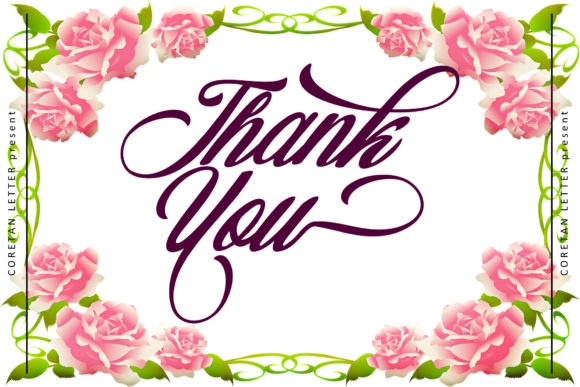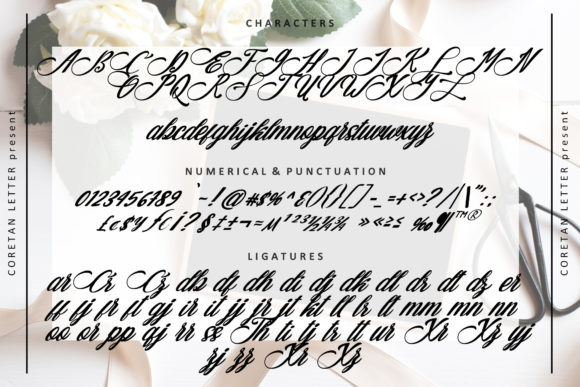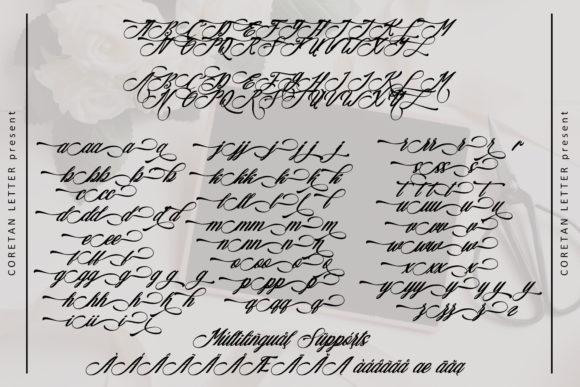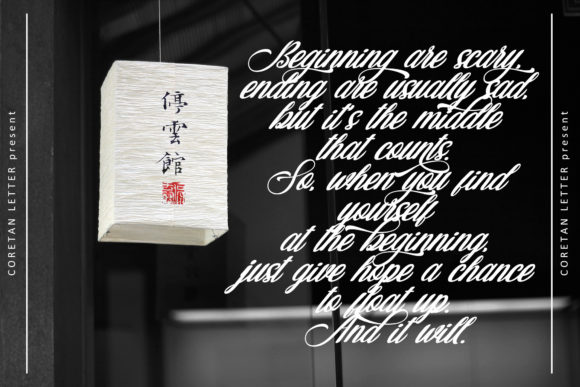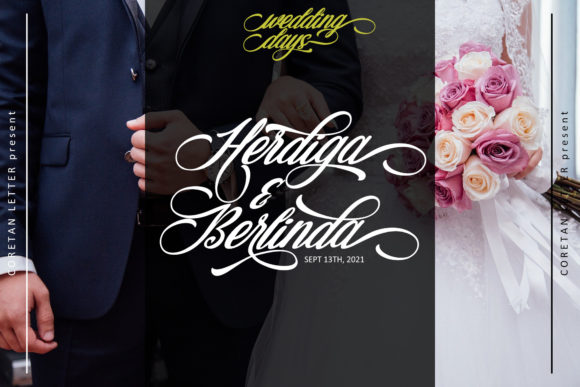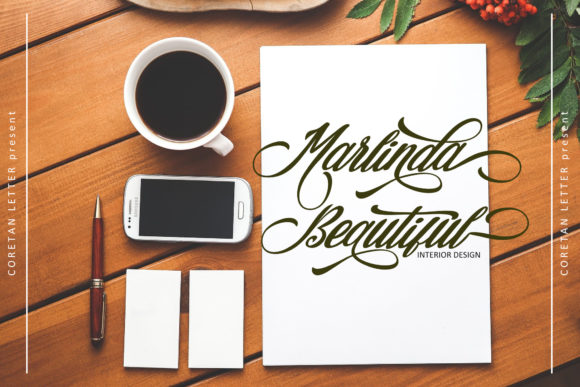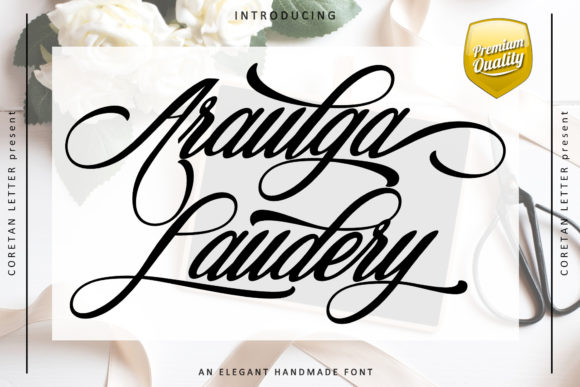
The Elusive Perfect Font: My Journey with Araulga Laudery
I still remember the frustration of working on a fashion branding project, scrolling through countless fonts, but none seemed to capture the essence of the brand. That was until I stumbled upon Araulga Laudery. This beautiful, well-balanced, and vintage-styled script font has been a game-changer for me, and I’m excited to share my experience with you.
An Honest Review of Araulga Laudery
- ✨ Smooth curves and elegant lines that scream sophistication
- ✅ Perfect for fashion branding, editorial designs, and any project that requires a touch of vintage glamour
- 🌟 PUA encoded, making it easy to access all the amazing glyphs and ligatures
- 🎨 Highly versatile and can be used for a wide range of creative projects
While Araulga Laudery is an excellent font, there are a few minor limitations to be aware of:
- ⚠️ Some users may find the font a bit too ornate for certain projects, such as body text or very casual designs
- 🤔 Limited availability of condensed or bold weights, which may limit its use in certain design scenarios
The Designer Inspiration Behind Araulga Laudery
While I couldn’t find any information on the designer behind Araulga Laudery, it’s clear that they drew inspiration from classic script fonts and aimed to create a modern, elegant typeface. The result is a font that’s both timeless and trendy, perfect for designers looking for a sophisticated touch.
A: PUA (Private Use Area) encoding allows font users to access a wide range of glyphs and ligatures, making it easier to create unique and creative designs.
Q: Is Araulga Laudery suitable for body text?
A: While Araulga Laudery is a beautiful font, it’s recommended for display text or headings rather than body text due to its ornate nature.